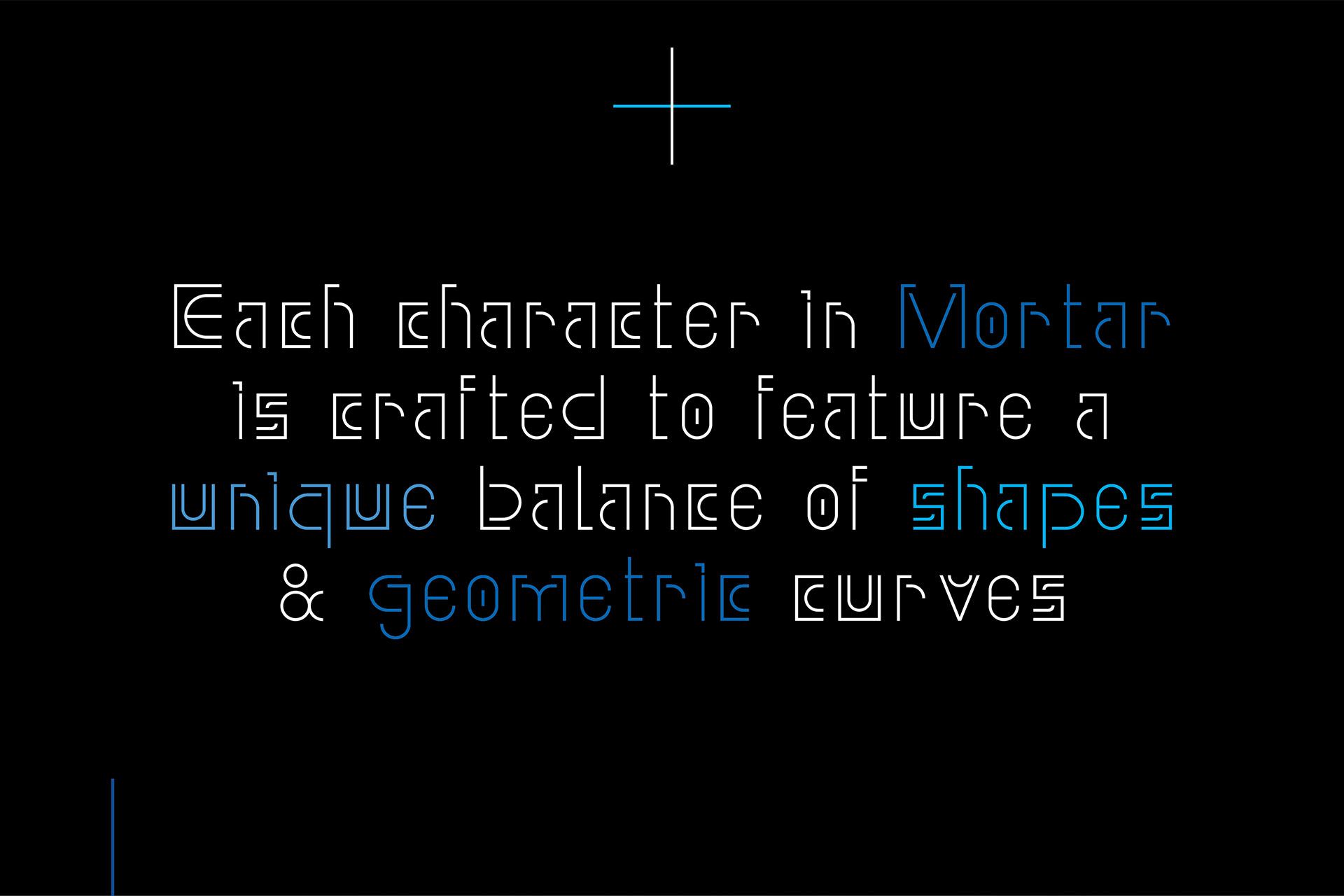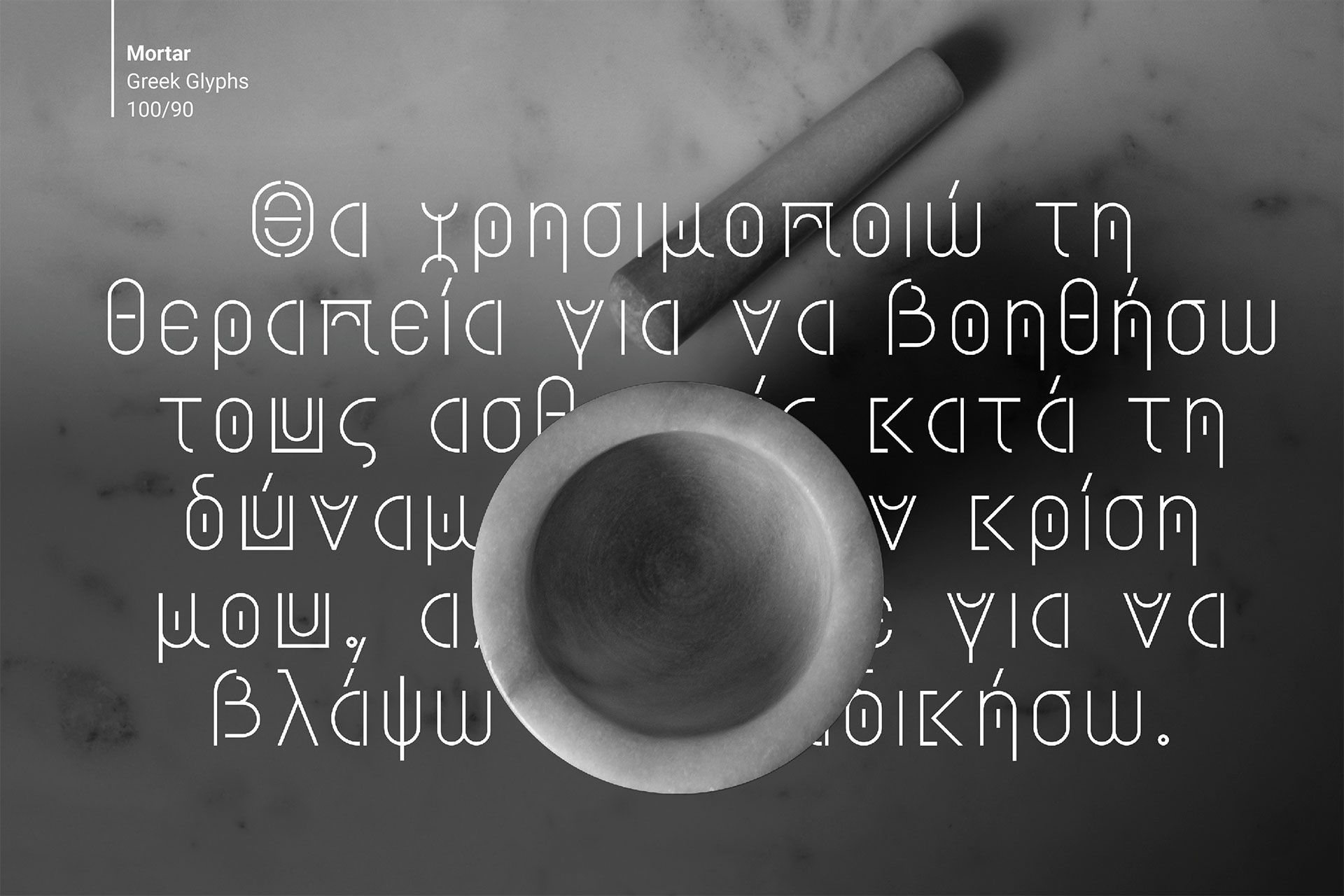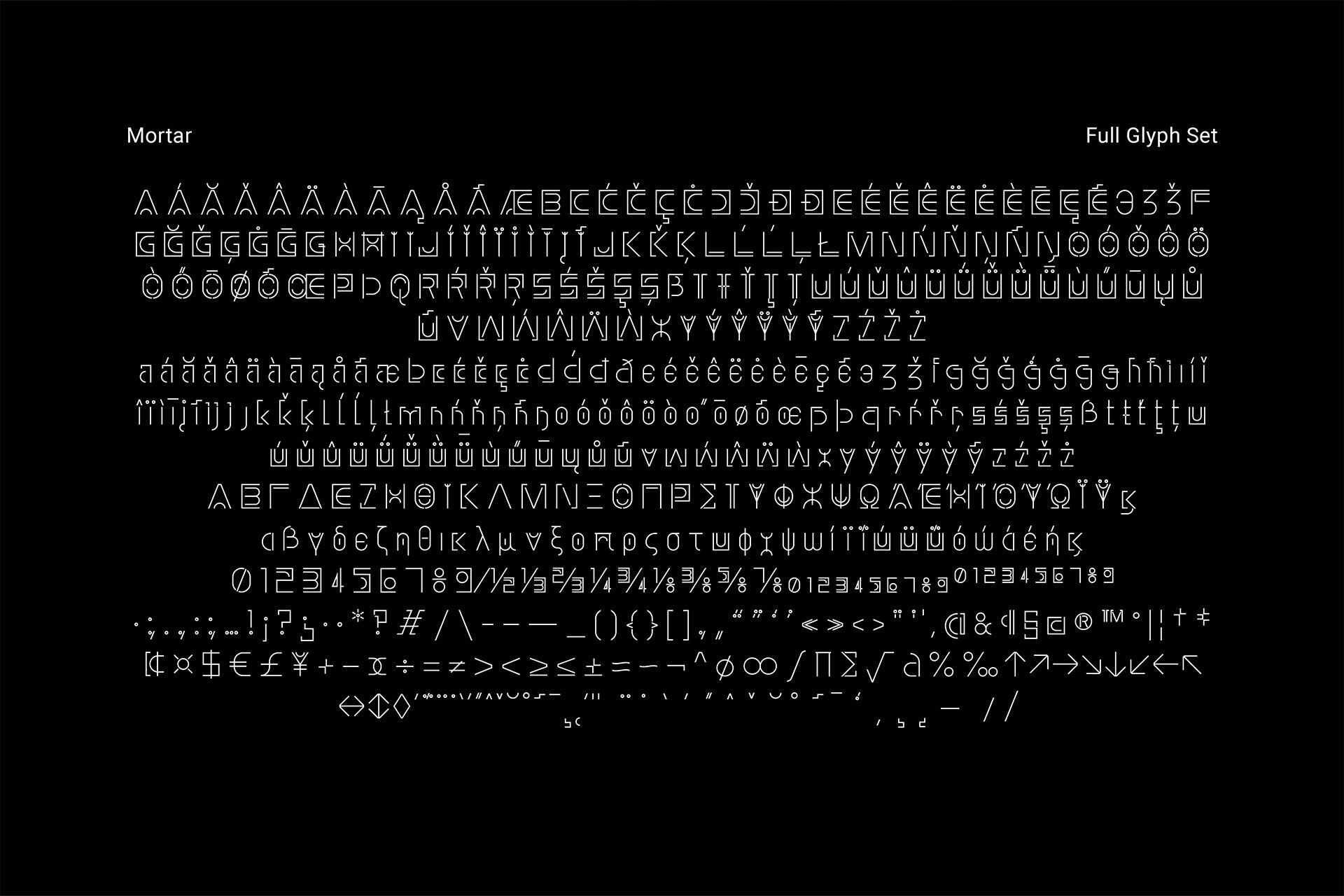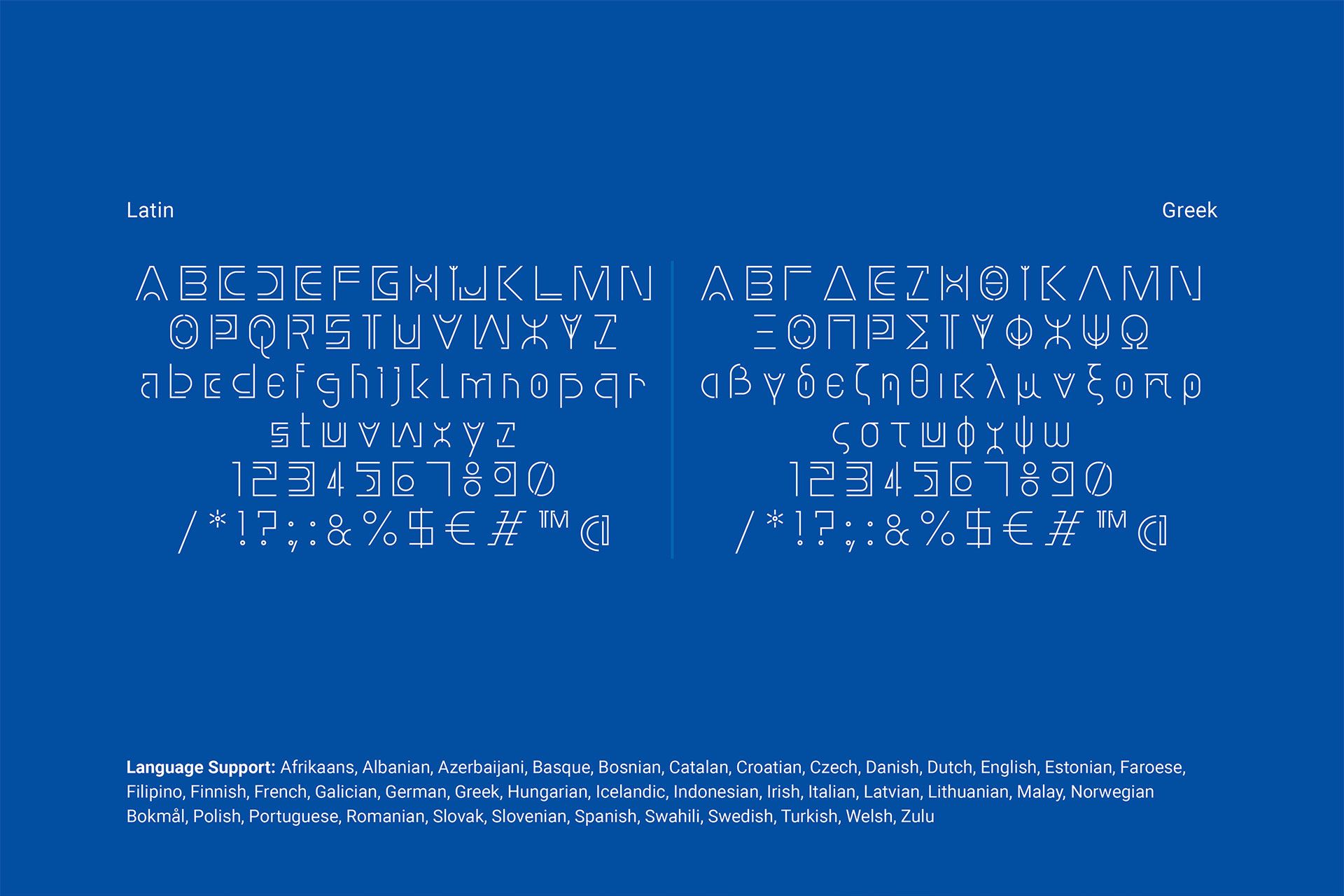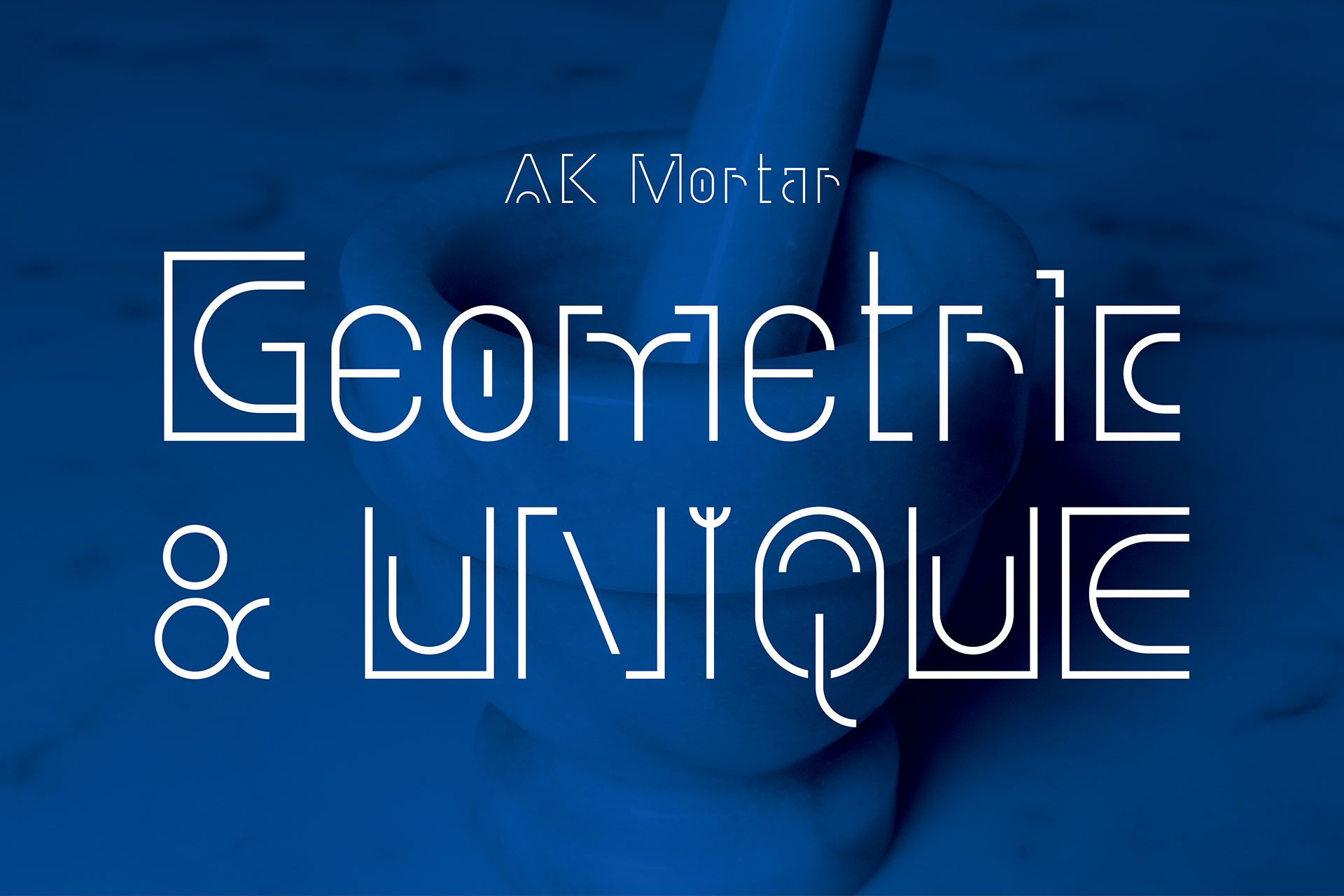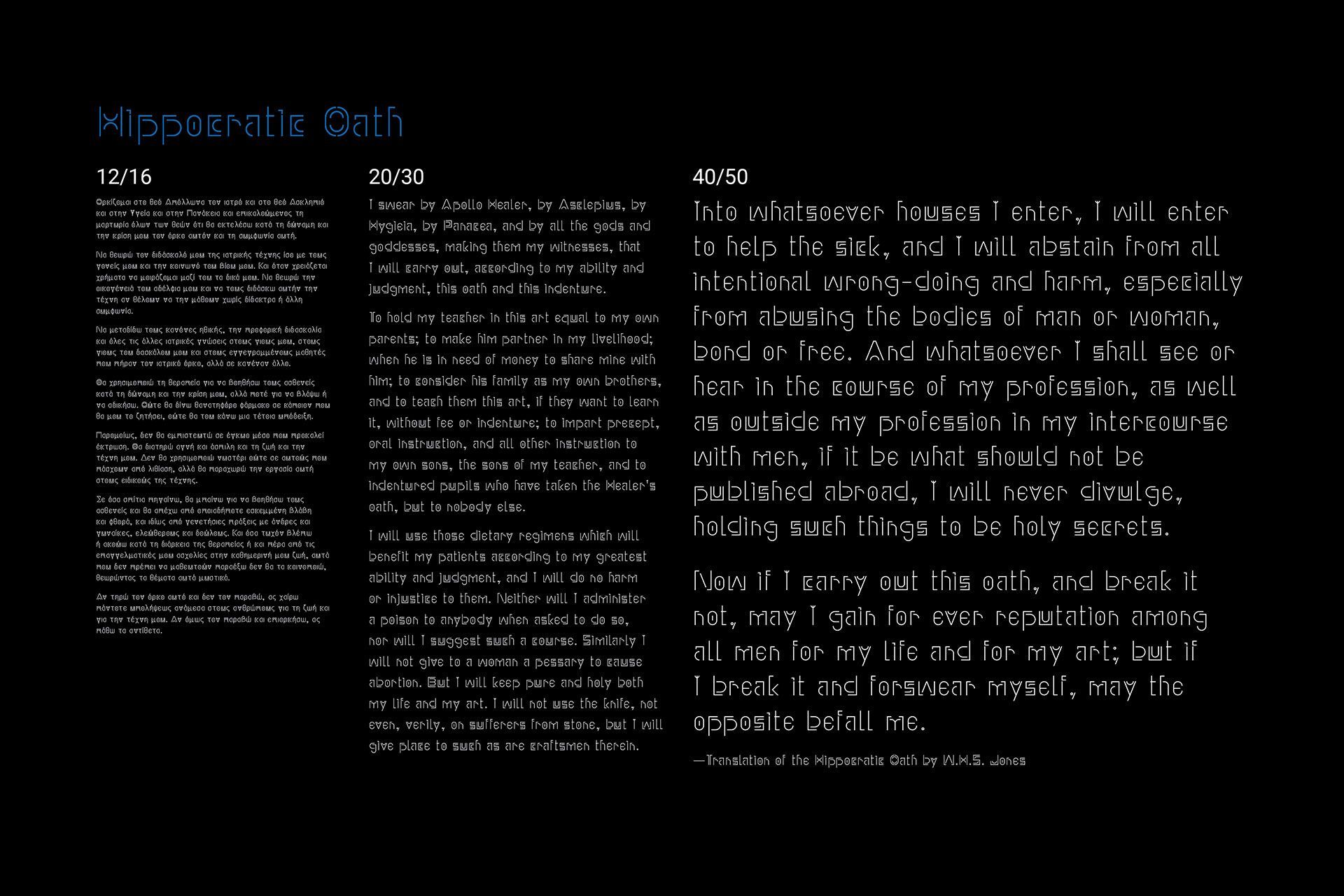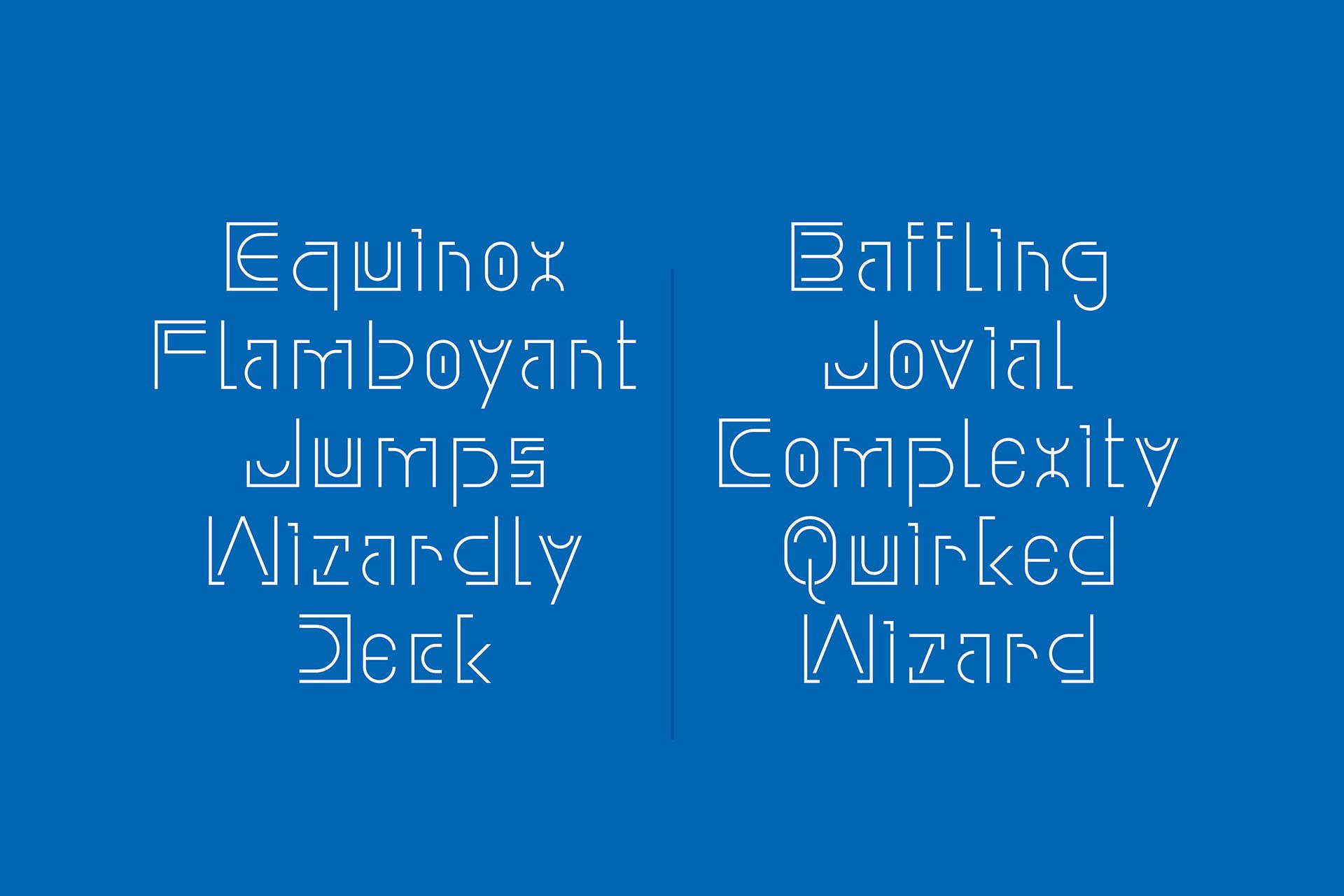
Mortar Display Font
Mortar is a modern display font inspired by the smooth, concave curves of the mortar and angular pestle.
Mortar Display Font
Mortar is a modern display font inspired by the smooth, concave curves of the mortar and angular pestle.
Each character in Mortar is crafted to feature a unique balance of shapes, geometric curves, and elegant strokes, creating a font perfect for headlines and, if you are feeling adventurous, for use in body copy.
• Class: Sans Serif, Display
Each character in Mortar is crafted to feature a unique balance of shapes , geometric curves.